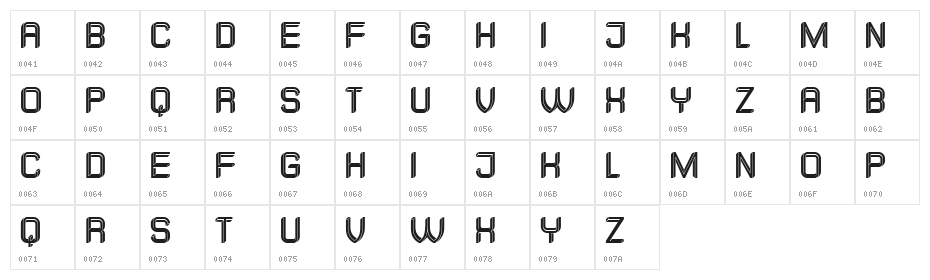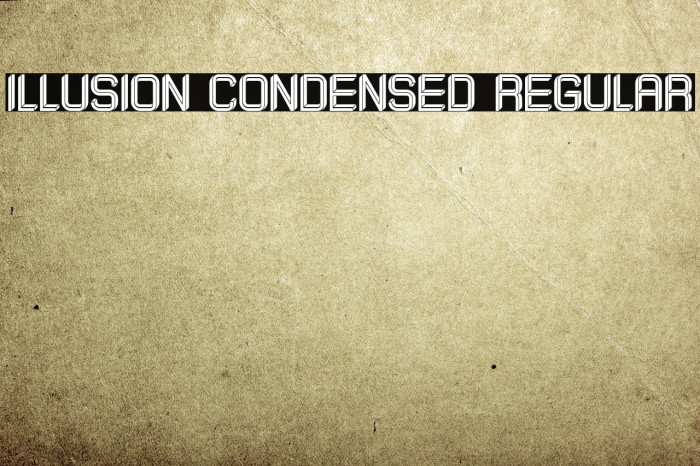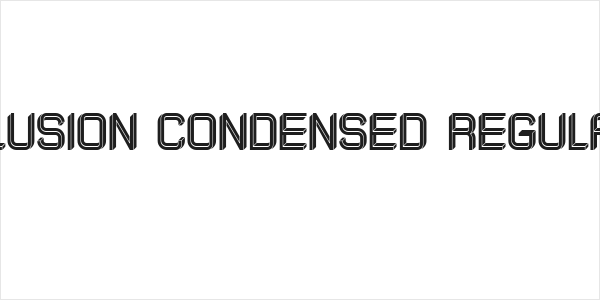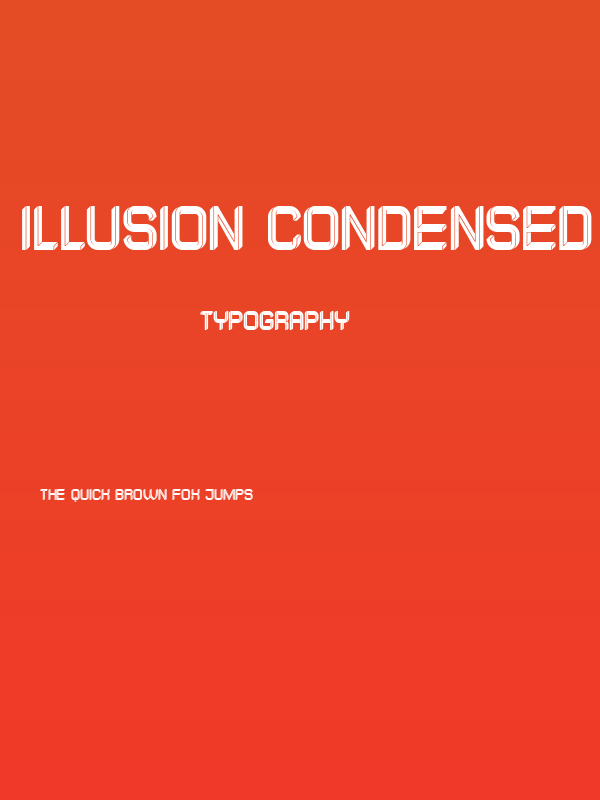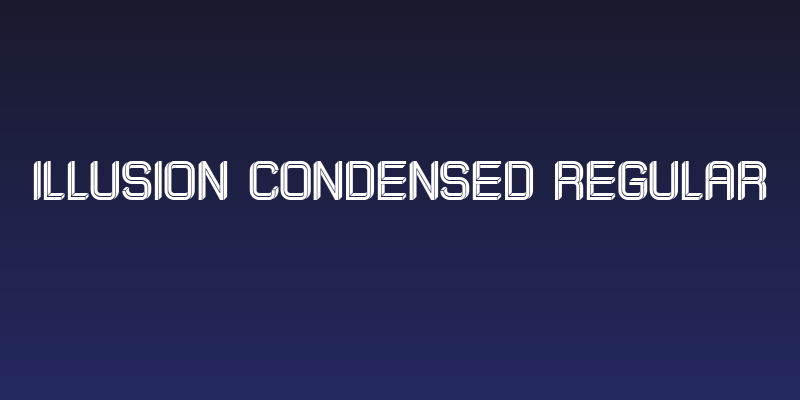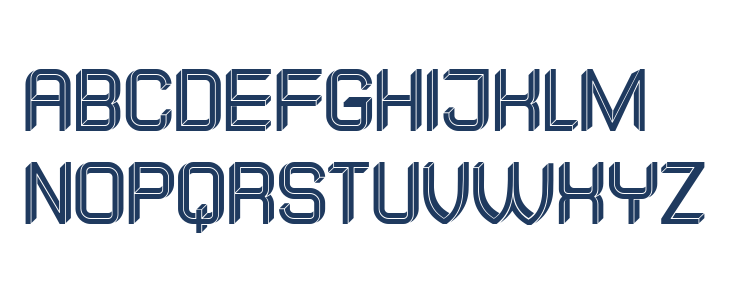
Illusion Condensed Regular Font
Illusion Condensed Regular Description
This font features a bold, geometric design with a three-dimensional illusion effect. Each character is constructed with sharp, angular lines and a shadow-like element that gives a sense of depth. The style is consistent across uppercase letters, creating a cohesive and striking appearance. The condensed nature of the font allows for efficient use of space while maintaining readability. Its unique design makes it stand out, suitable for projects that require a modern and eye-catching typeface.
| Proposed Projects | Ideal for posters, logos, headlines, and any design requiring a modern, eye-catching font. |